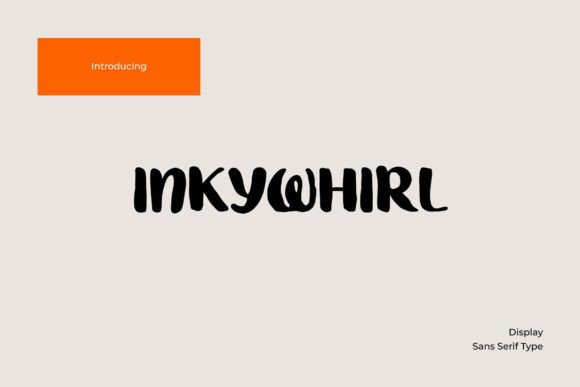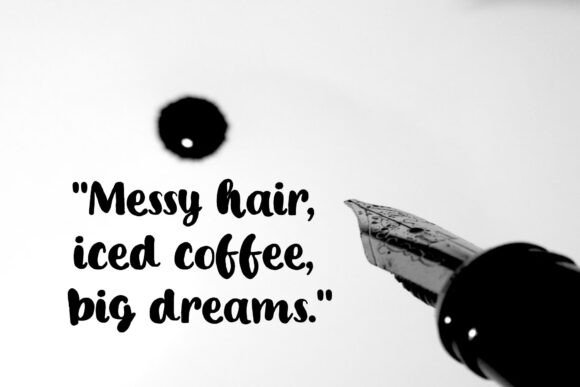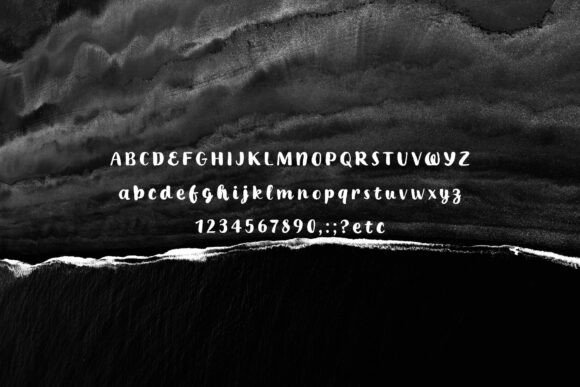
Inky Whirl Font
About the Inky Whirl Font
Introducing the Inky Whirl Font, a beautifully crafted typeface designed to elevate your creative projects. InkyWhirl is a new addition to the world of typography. This font is scribbled, friendly, and perfect for any kind of creative endeavor you may be using.
Contains all capital letters, numbers, and basic punctuation.
Inky Whirl’s playful, hand-scribbled style makes it ideal for headlines, short text blocks on posters, invitations, or social media graphics. Its informal nature lends itself well to branding for creative businesses, children’s products, or projects needing a friendly, approachable feel. Avoid using it for body copy or lengthy paragraphs; its legibility suffers at smaller sizes and over extended text.
This font pairs well with clean, geometric sans-serifs like Montserrat or Open Sans for a balanced contrast, or with a more traditional serif like Playfair Display for a touch of elegance. Using a simple script font as an accent could add a layer of sophistication.
Inky Whirl projects a friendly, informal personality, best suited for brands that want to communicate approachability and creativity. Its hand-drawn feel adds a human touch, making it less suitable for formal or corporate applications.
Inky Whirl Font Usage Examples
Inky Whirl Font Example